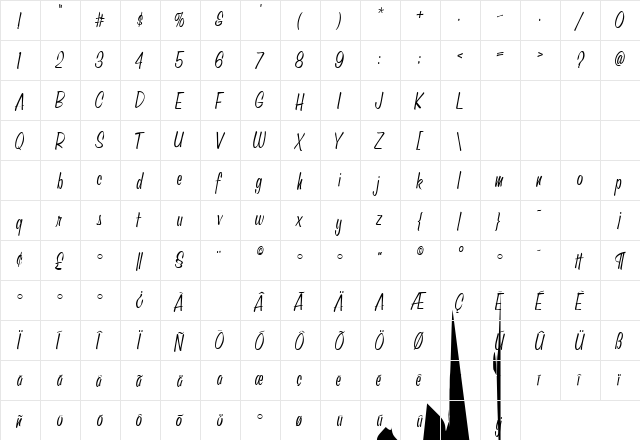
Tiki Regular
Design Context for Tiki Typeface
Tiki is a composed and adaptable typeface that performs quietly and consistently across a wide range of design contexts.